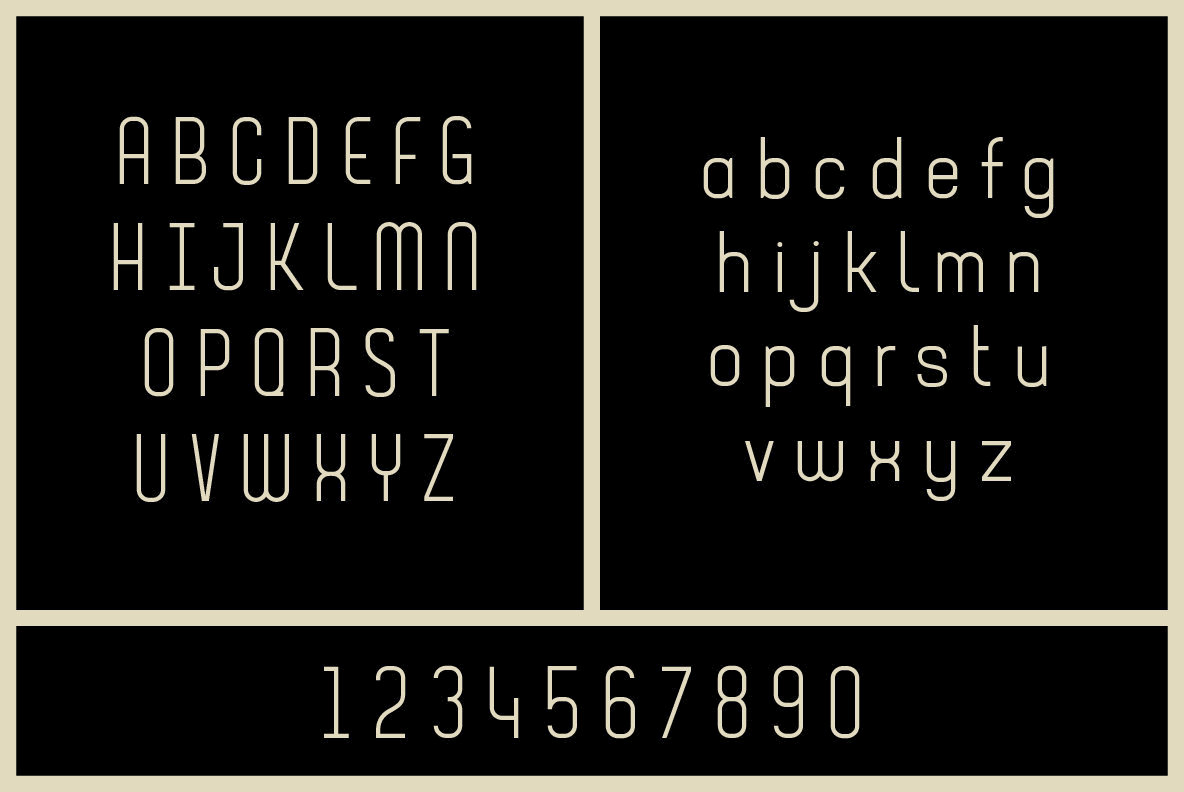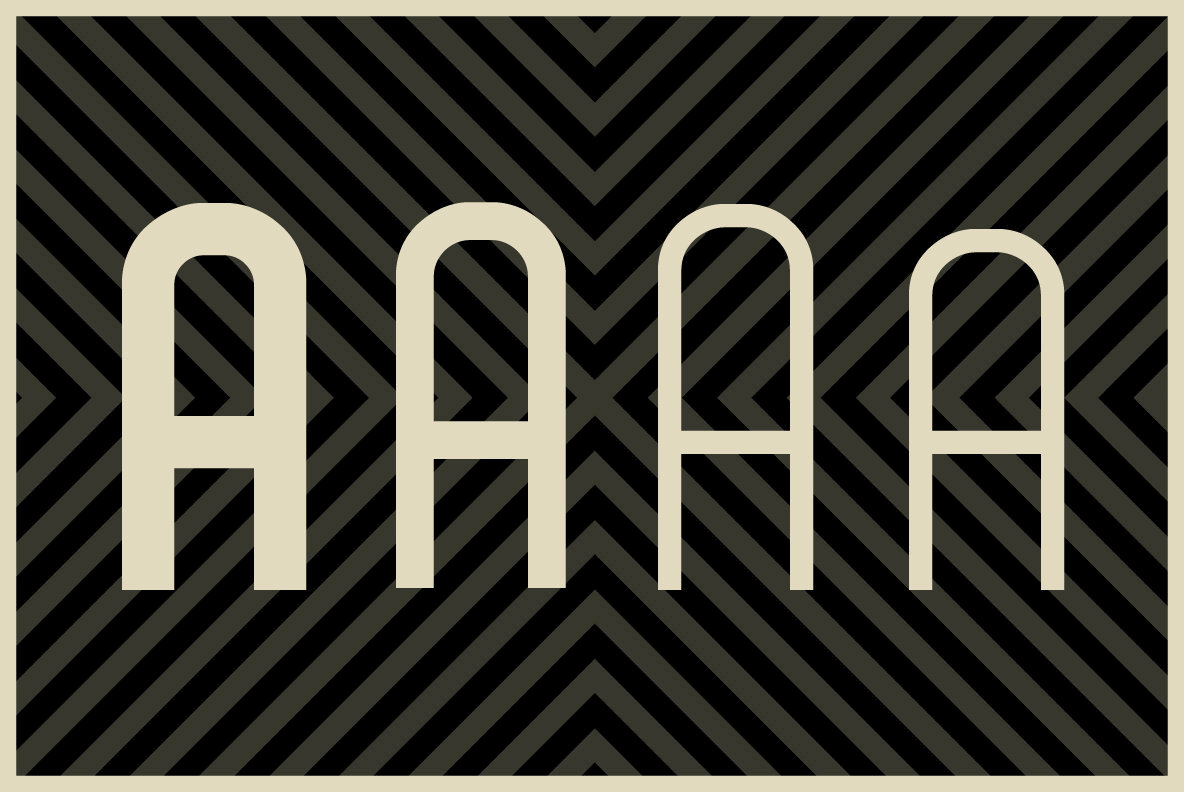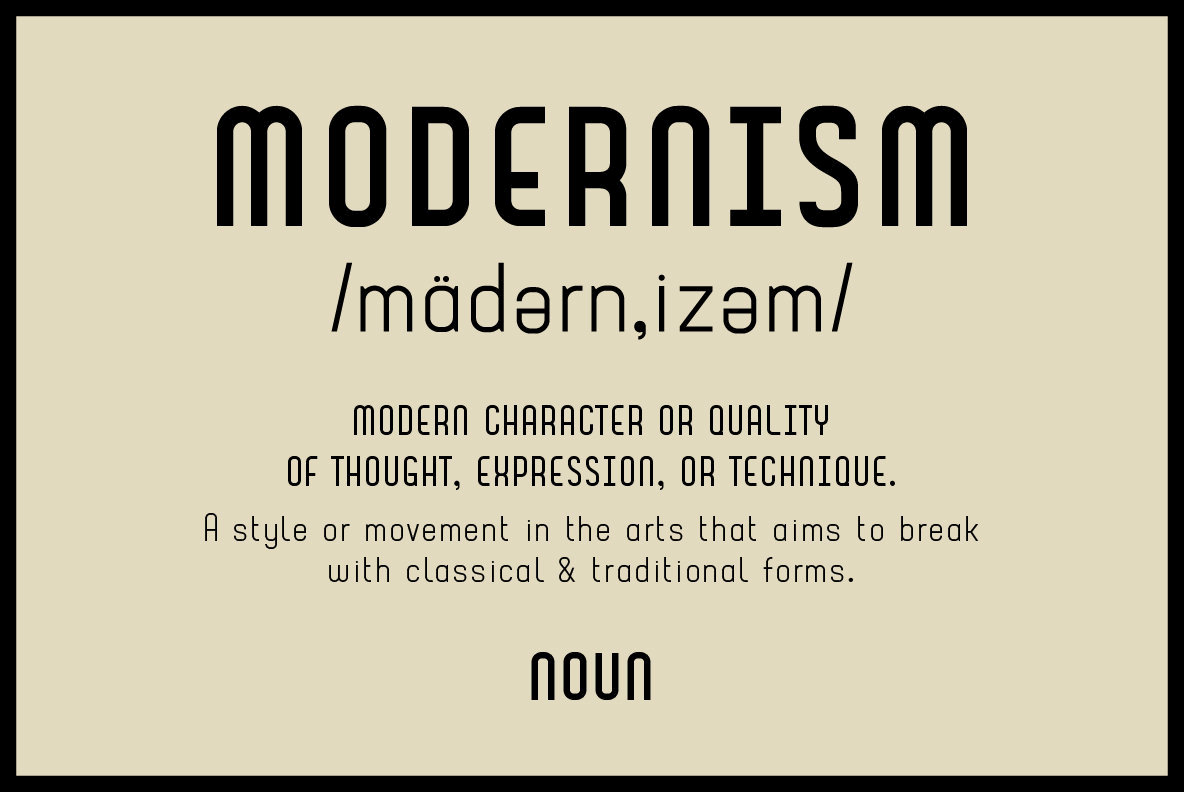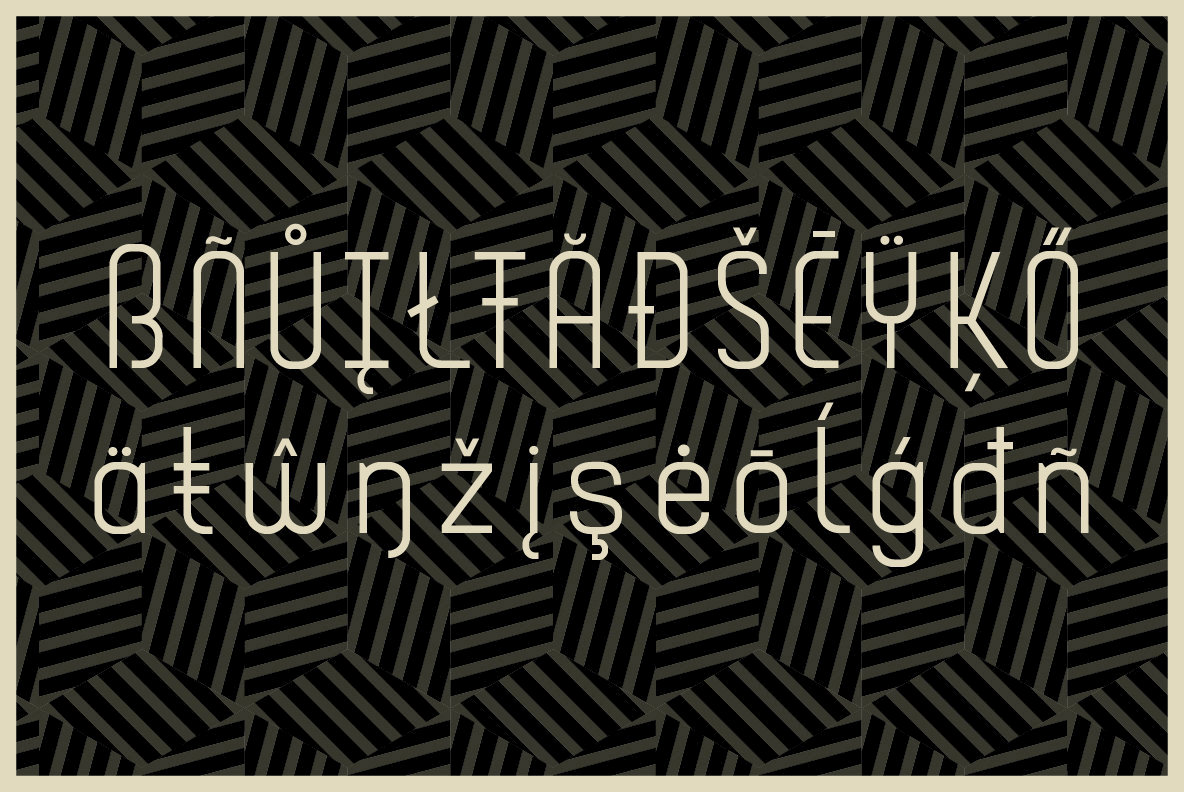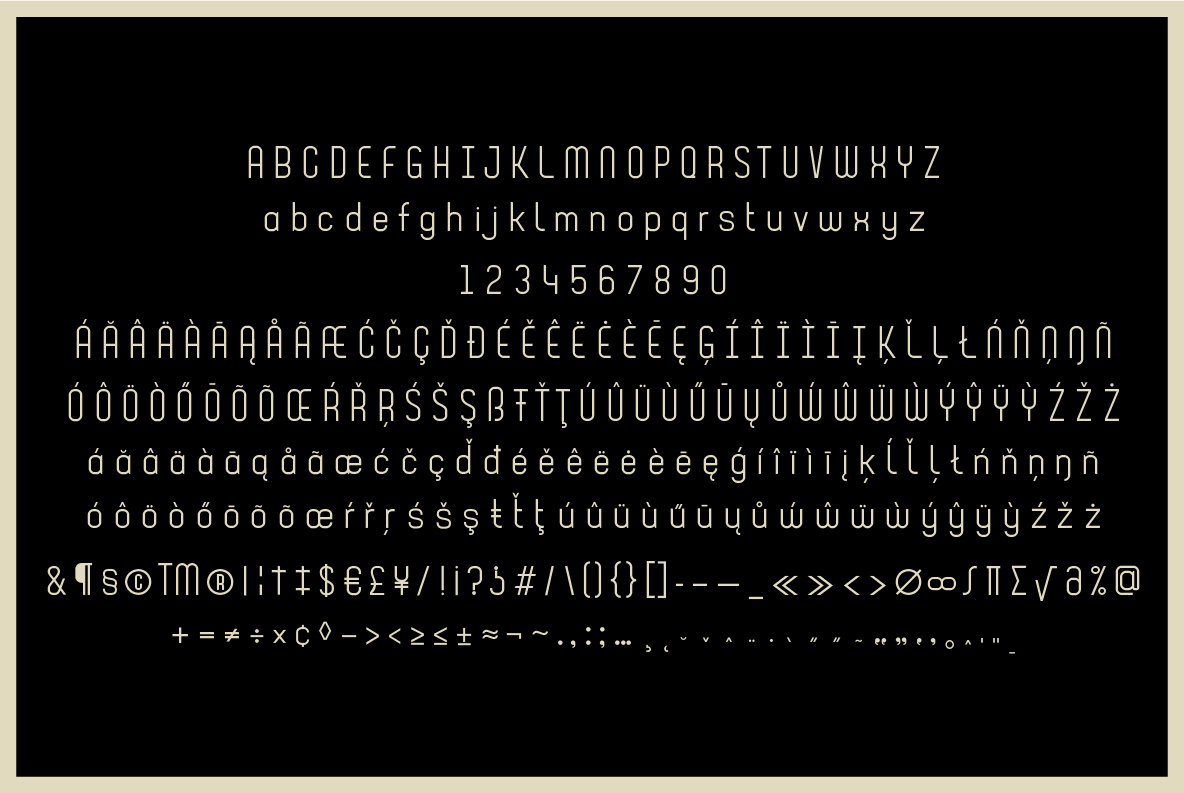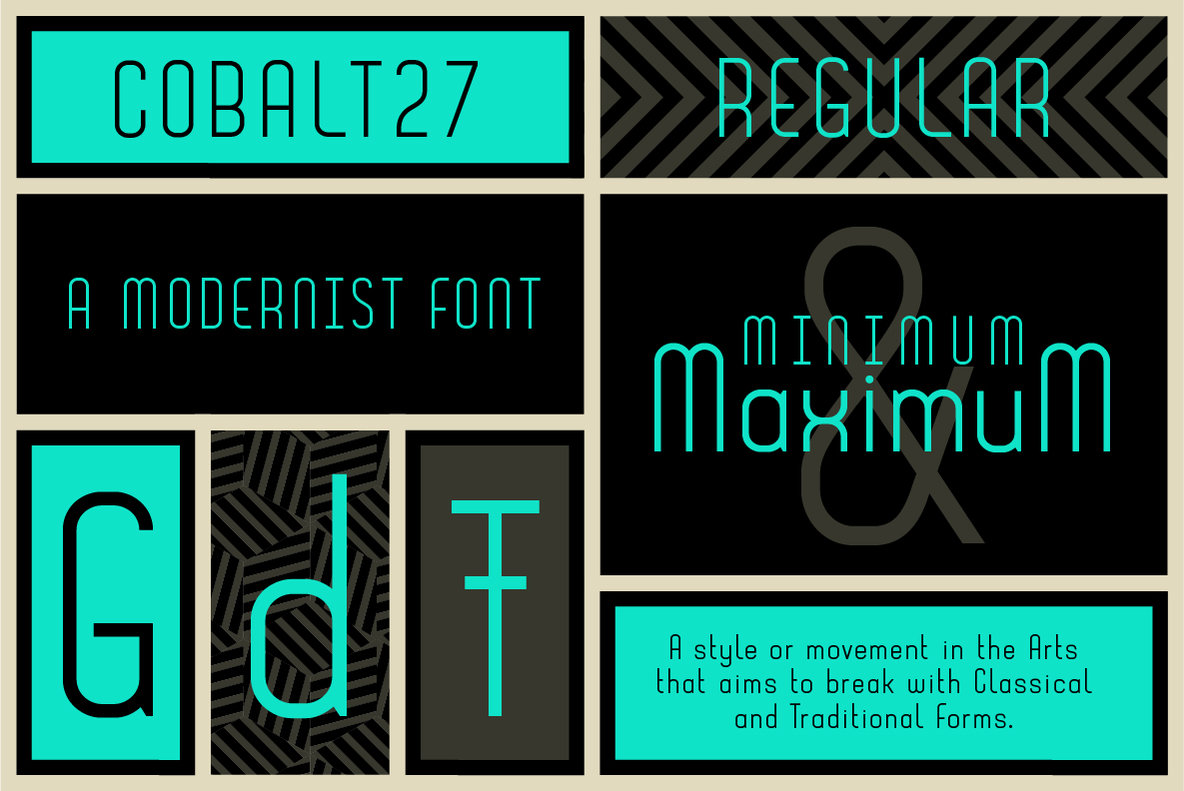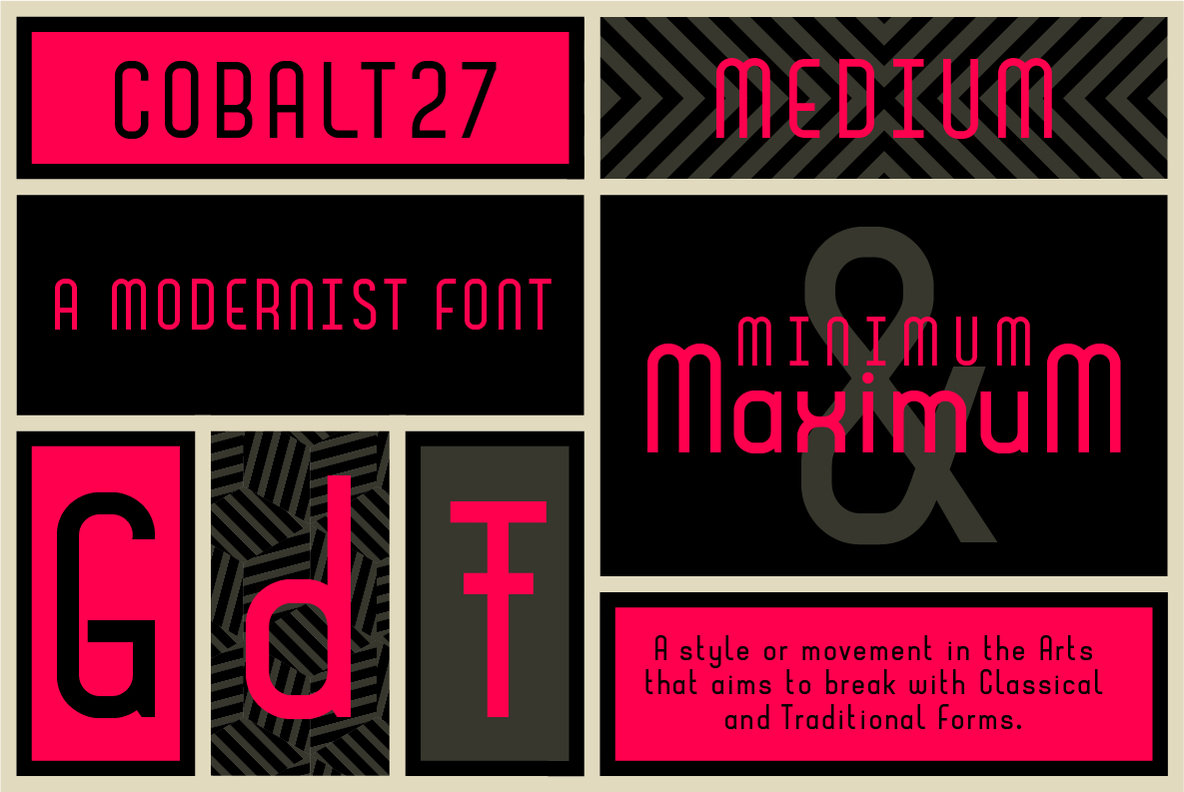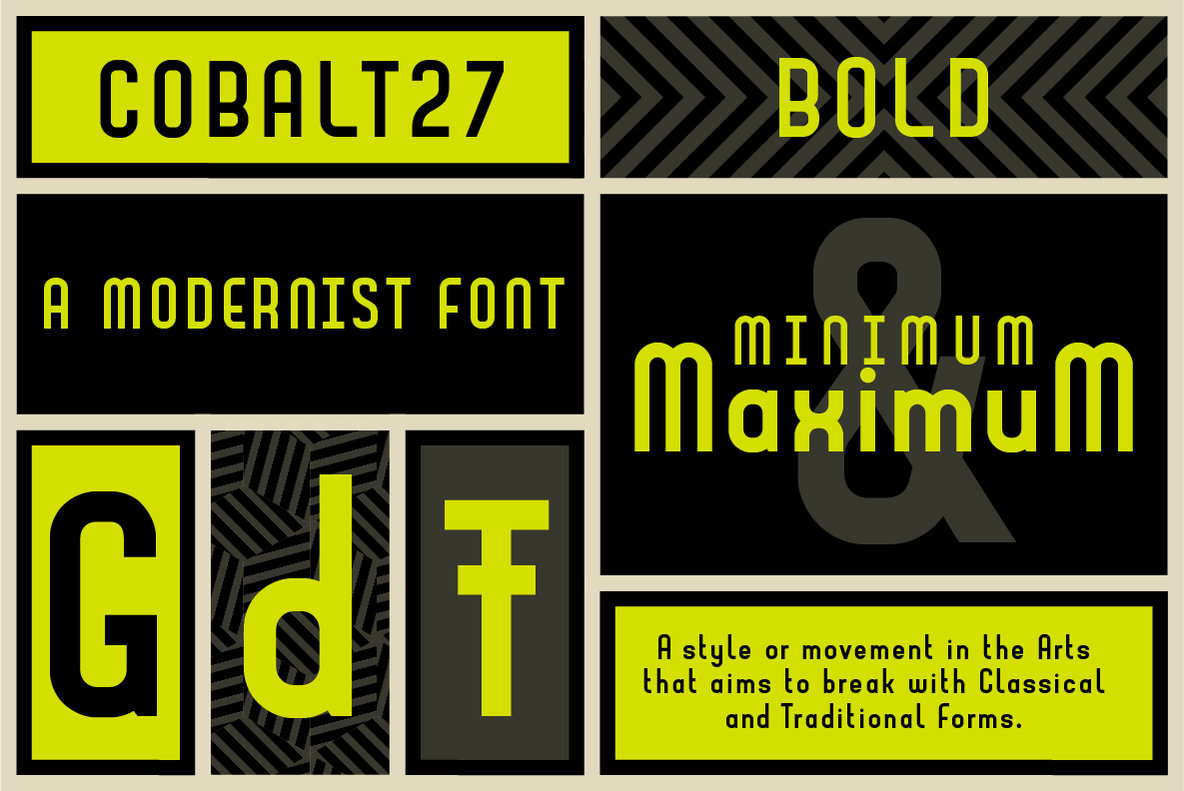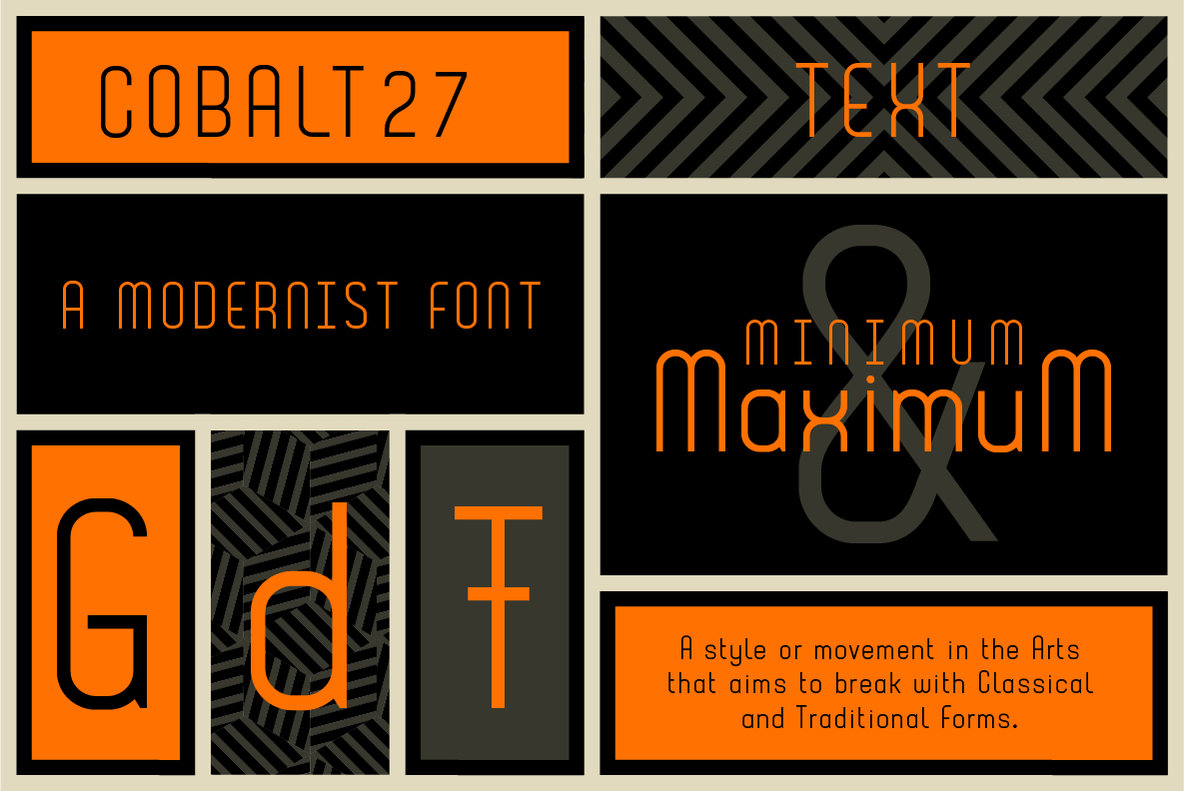
Cobalt 27 Font
Cobalt 27 was inspired by early and mid 20th century typography and graphic art movements, notably Constructivism and 60's modernism.
The family consists of three weights and one alternate text version that have been designed to be used with and compliment each other. Bold has been predominantly designed to be used as headers, while Medium and Regular can be used for headers and body copy. Text is an alternate version of Regular - shorter ascenders and descenders have been applied so shorter leadings can be achieved.
In keeping with the original source material from Eastern European Constructivism Posters, Cobalt 27 comes with 307 glyphs to cover a wide range of languages and their diacritics.